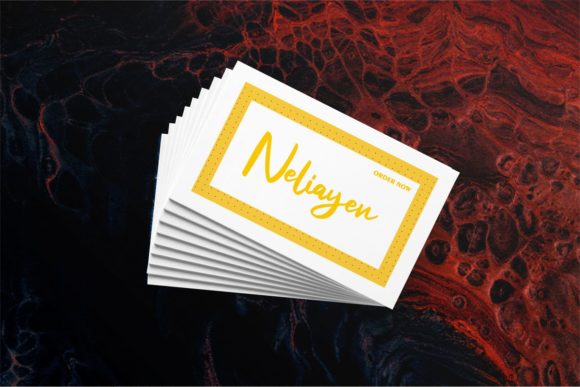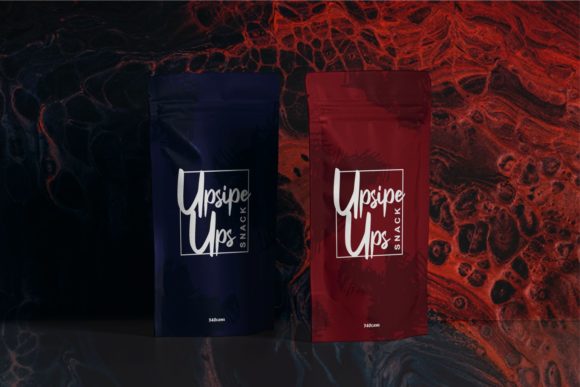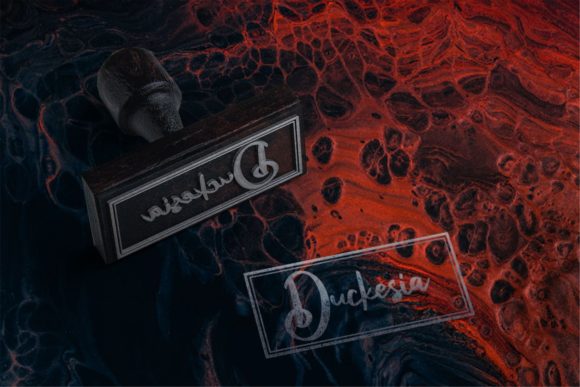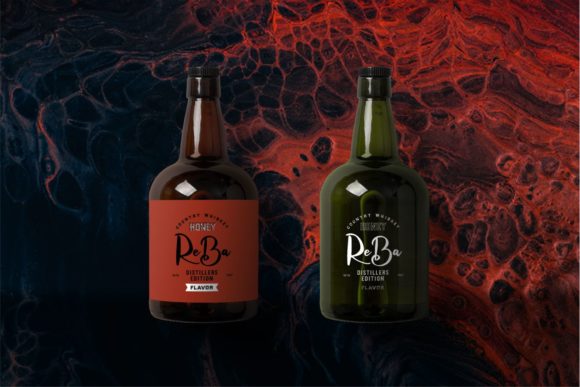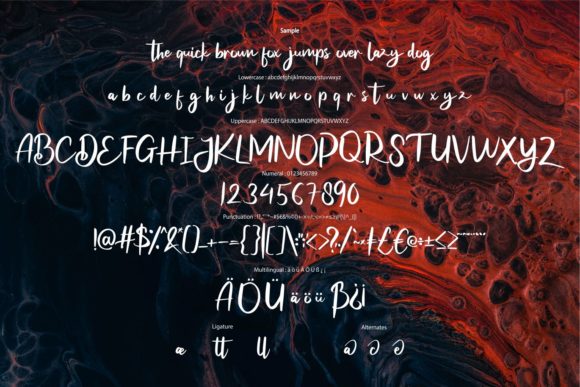
Antrip’s Font: Where Creativity Meets Personality
Have you ever stared at a blank canvas, trying to conjure up the perfect idea? The blank page stares back, taunting you with its emptiness, until suddenly – it hits you. A burst of creativity, a dash of inspiration, and your design begins to take shape. This is the moment when the right font can make all the difference.
Enter Antrip’s Font, a delightful handwritten font designed to bring your designs to life. With its playful, cursive style, Antrip’s Font is perfect for adding a personal touch to your projects. Whether you’re a graphic designer, a blogger, or simply someone who loves to create, Antrip’s Font is a valuable addition to your toolkit.
With Antrip’s Font, the possibilities are endless. From social media graphics to wedding invitations, this font is sure to make your designs stand out from the crowd. So why settle for boring, generic fonts when you can add a dash of personality to your work with Antrip’s Font?
Antrip’s Font Key Features
- Unique Characteristics: Antrip’s Font features a distinctive, hand-drawn aesthetic with a mix of modern and traditional elements, making it suitable for a variety of design applications.
Designer Review: Antrip’s Font
Overall, I’m quite impressed with Antrip’s Font. Here’s what works well: ✨
- Unique Character Set: Antrip’s Font has a distinctive character set that’s perfect for creating a one-of-a-kind brand identity.
- High-Quality Glyphs: The font’s glyphs are well-designed and look great at various font sizes.
- Strong Digital Performance: Antrip’s Font performs well in digital applications, including web and mobile.
- Limited Font Sizes: The font doesn’t perform as well at very large or very small font sizes.
- Not Ideal for Body Text: Antrip’s Font is better suited for headlines and titles, rather than body text.
Overall, I’d say Antrip’s Font is a solid choice for designers looking for a unique, high-quality font. While it may have some limitations, its strengths make it a great addition to any design project.
Antrip’s Font is a versatile font that can be used in a variety of projects, including:
- Business cards and stationery
- Infographics and presentations
For best results, use Antrip’s Font in conjunction with a clean and simple design aesthetic.